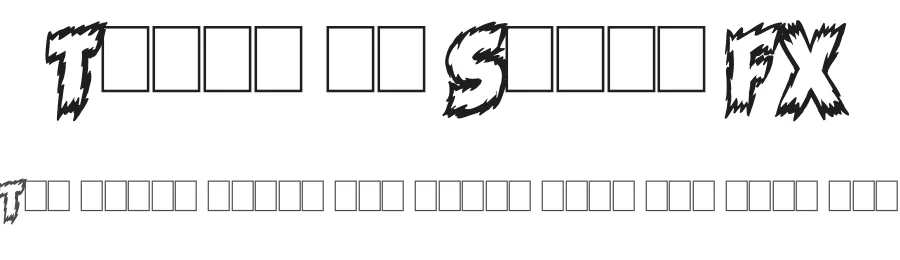
About Megalopolis Font
Megalopolis is a decorative font designed by imagex. It includes 42 glyphs, a regular weight, and TTF (TrueType) format. Megalopolis is free to download; check the license details on this page before commercial use. Decorative fonts like Megalopolis work best for logos, posters, packaging, and standout headlines.
Megalopolis Font is a decorative font that shines as a display or heading face. Pair it with a clean sans-serif or serif font for body text β the contrast creates a clear hierarchy while the two styles stay balanced and easy to read.